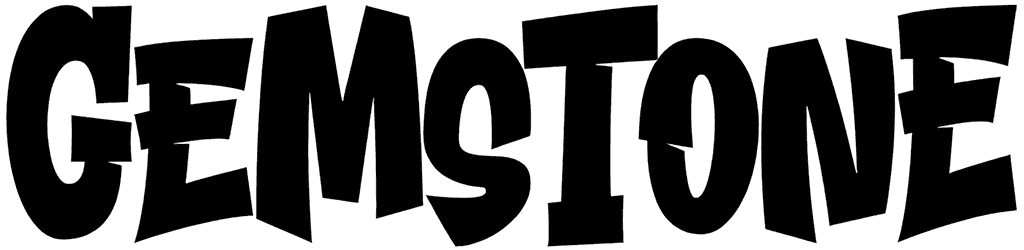
Gemstone Font
You can create so many awesome designs with just a simple graffiti font like this one. Gemstone gives your content an informal and cartoonish look, which makes everyone amazed by it. You may find this collection to lack…
You can create so many awesome designs with just a simple graffiti font like this one. Gemstone gives your content an informal and cartoonish look, which makes everyone amazed by it. You may find this collection to lack lowercase, but it’s not gonna leave you empty-handed in your project.